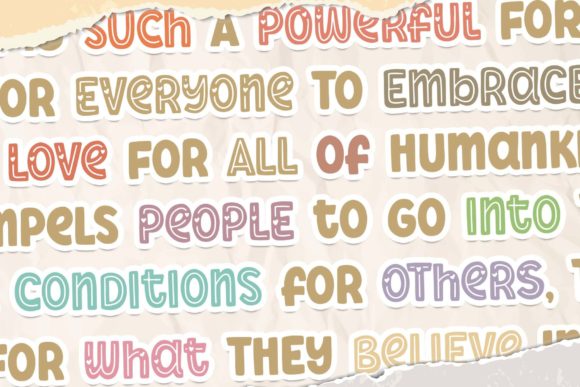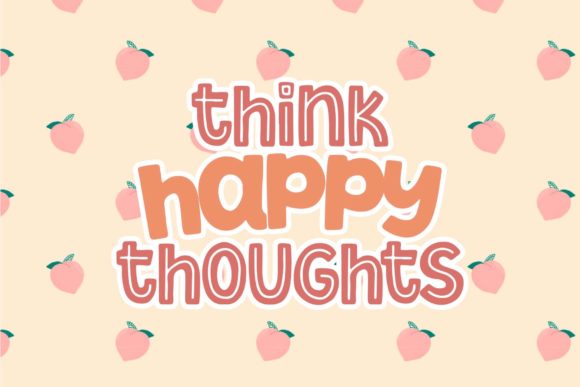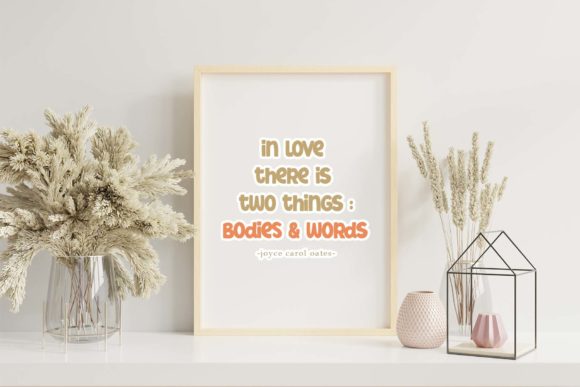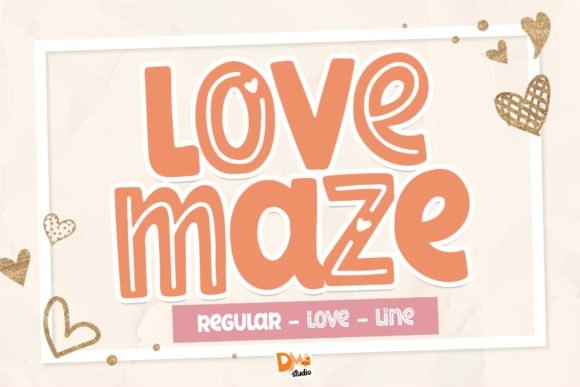
Introduction to Love Maze Font
Love Maze is a cool, fun and friendly display font.
Add this romantic looking font to each of your love letters, wedding invitations or favorite design ideas, and you will be astounded by the outcome .
Key Features of Love Maze Font
Why Choose Love Maze Font?
Love Maze Font offers exceptional quality and versatility, making it a valuable addition to your design toolkit. Whether you’re creating for personal projects or commercial use, Love Maze Font delivers professional results.